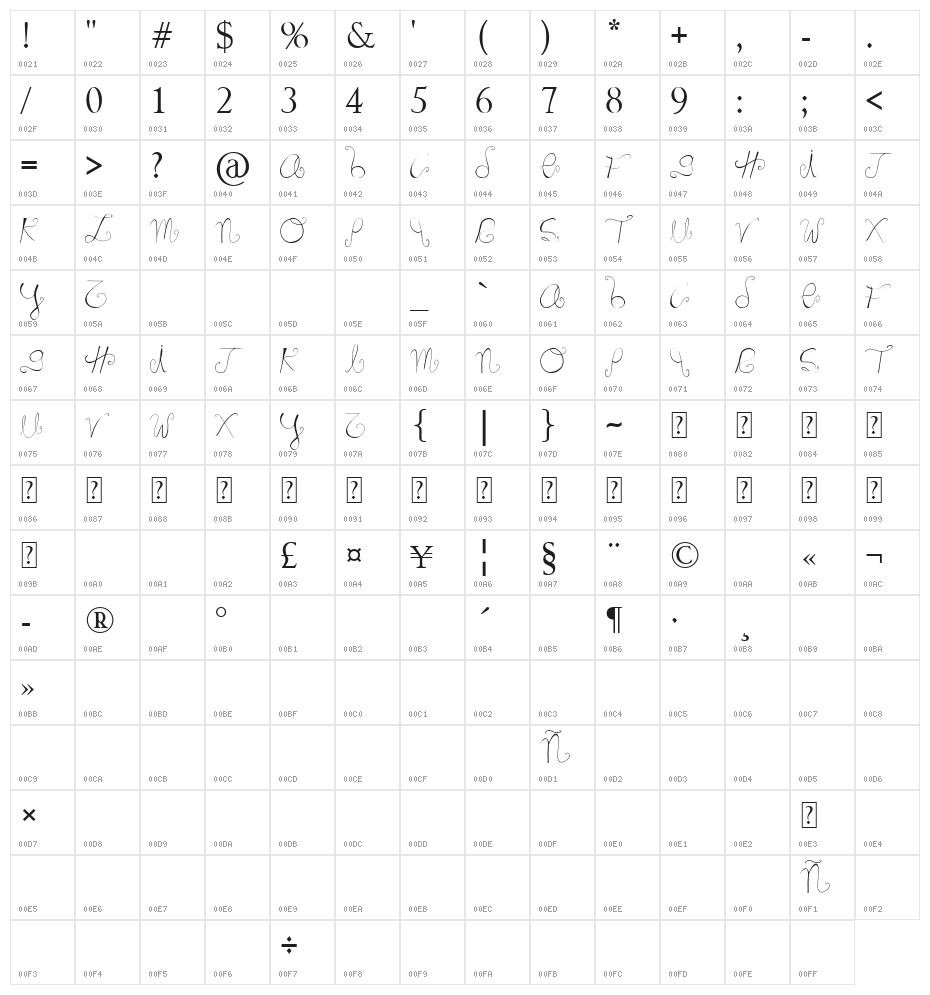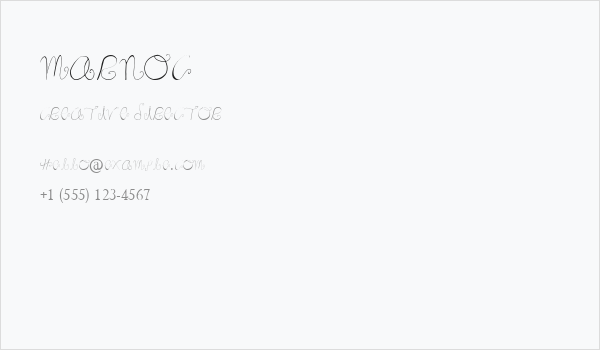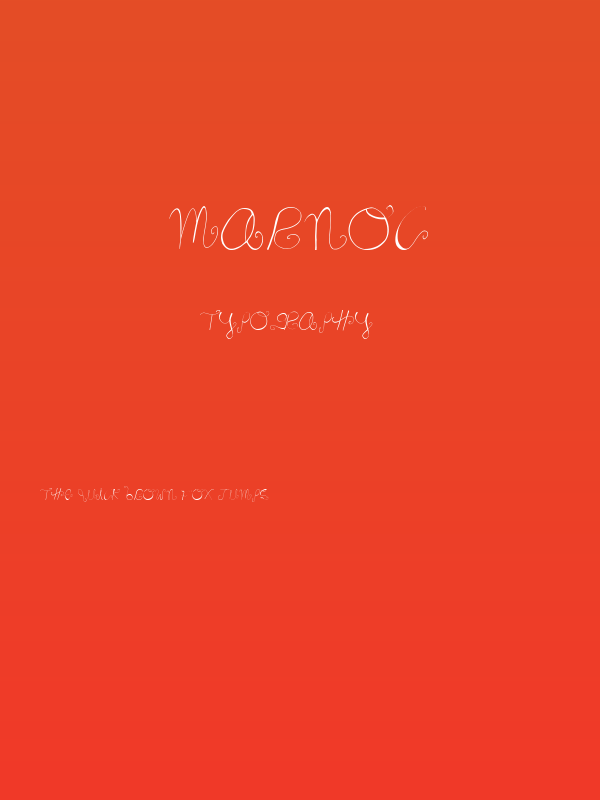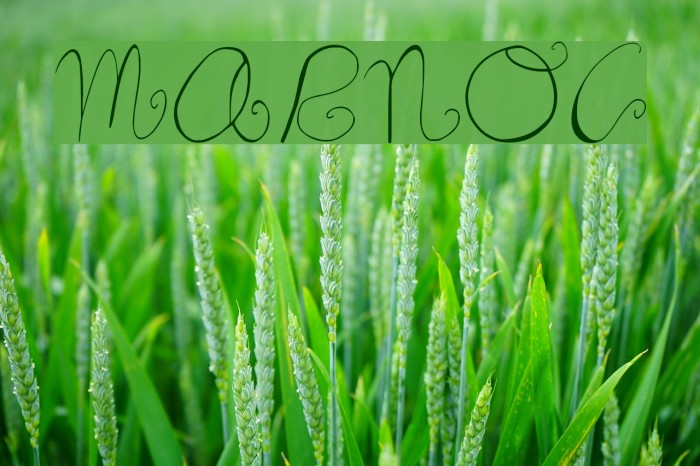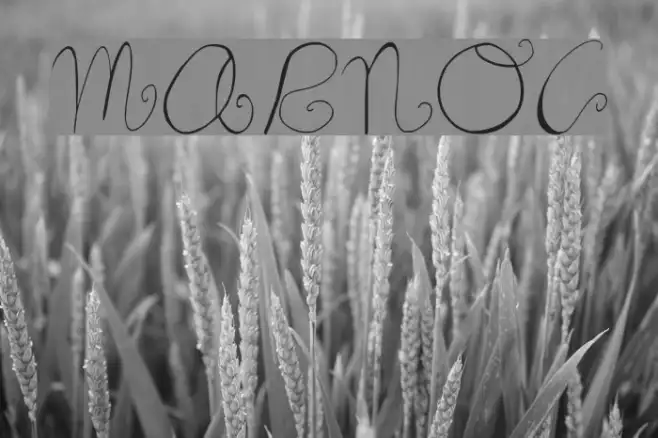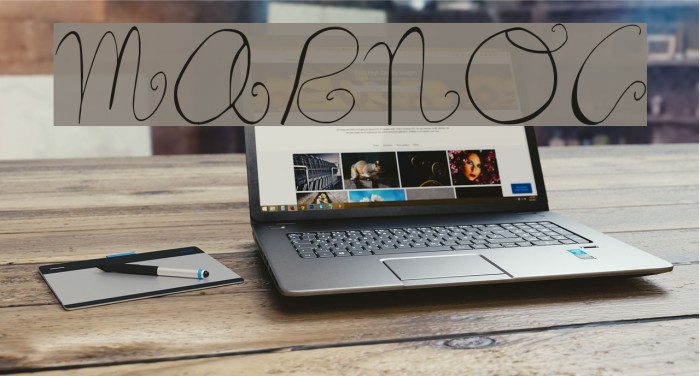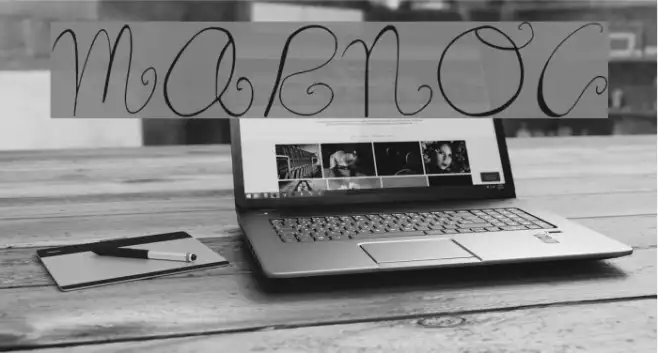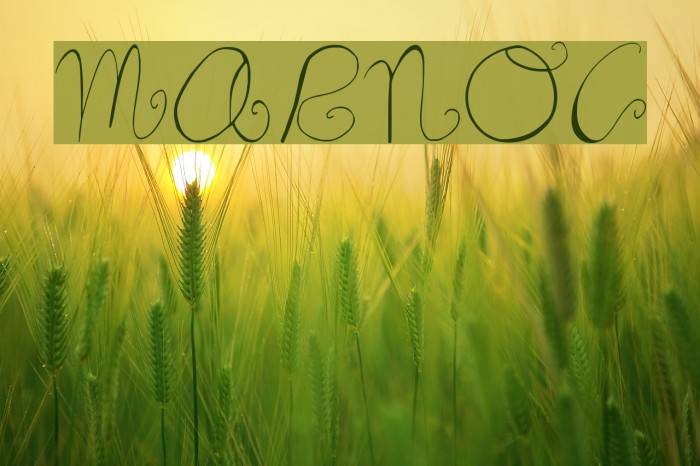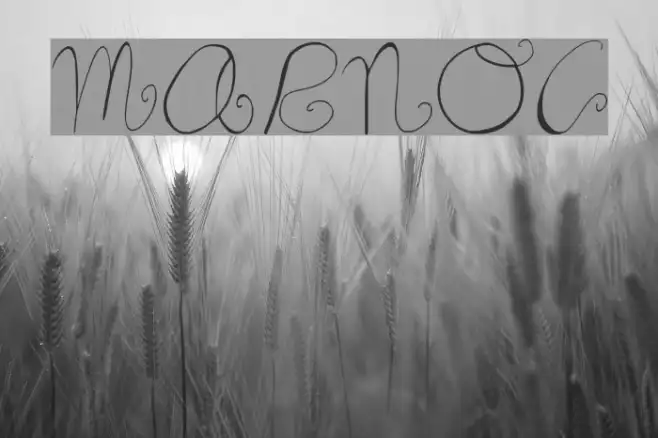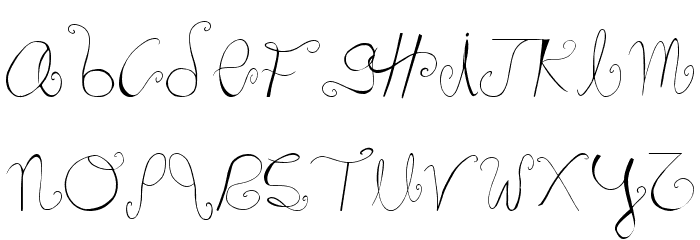
Marnoc Font
Marnoc Description
This font features an elegant and whimsical design with a handwritten style. The letters are adorned with delicate swirls and loops, giving it a playful yet sophisticated appearance. The uppercase and lowercase letters maintain a consistent flow, with each character exhibiting unique flourishes that add to its charm. The numerals are bold and clear, contrasting with the more intricate letterforms. Special characters are creatively integrated, maintaining the overall aesthetic. This font is perfect for projects that require a touch of elegance and creativity.
MARNOC UPPERCASE
MARNOC LOWERCASE
MARNOC OTHER CHARS